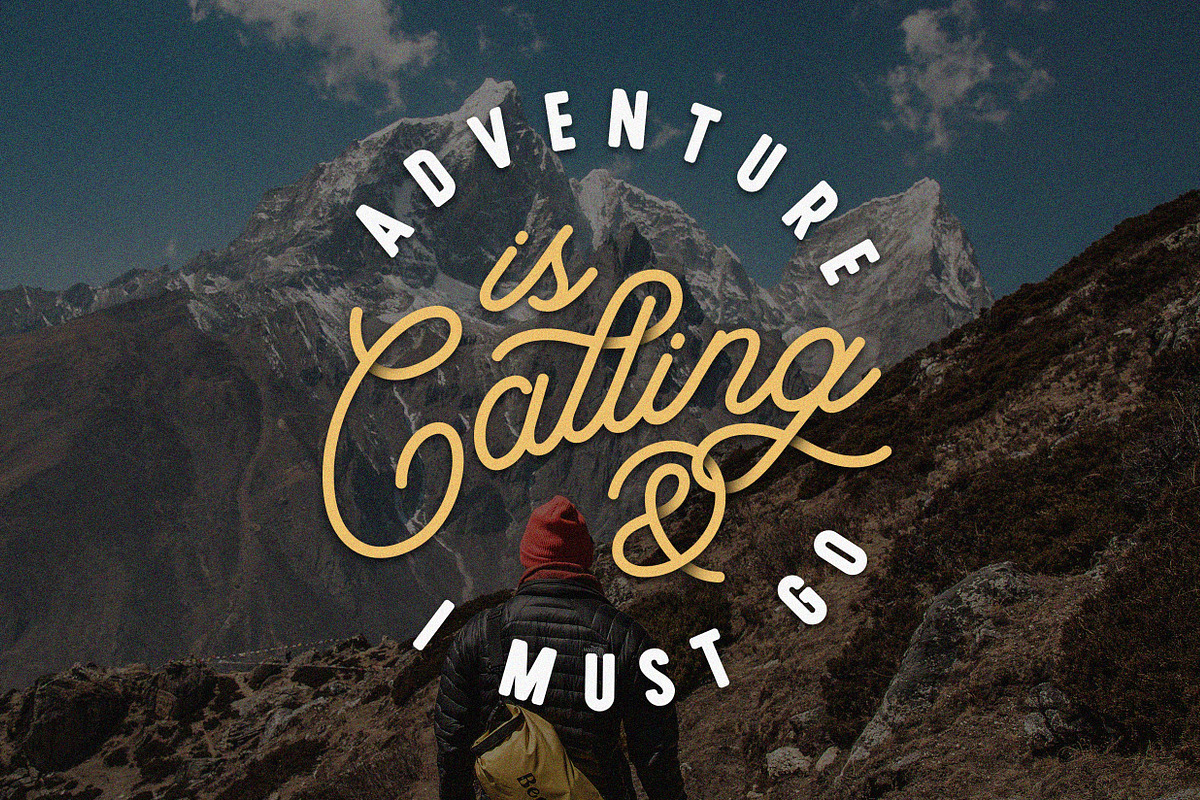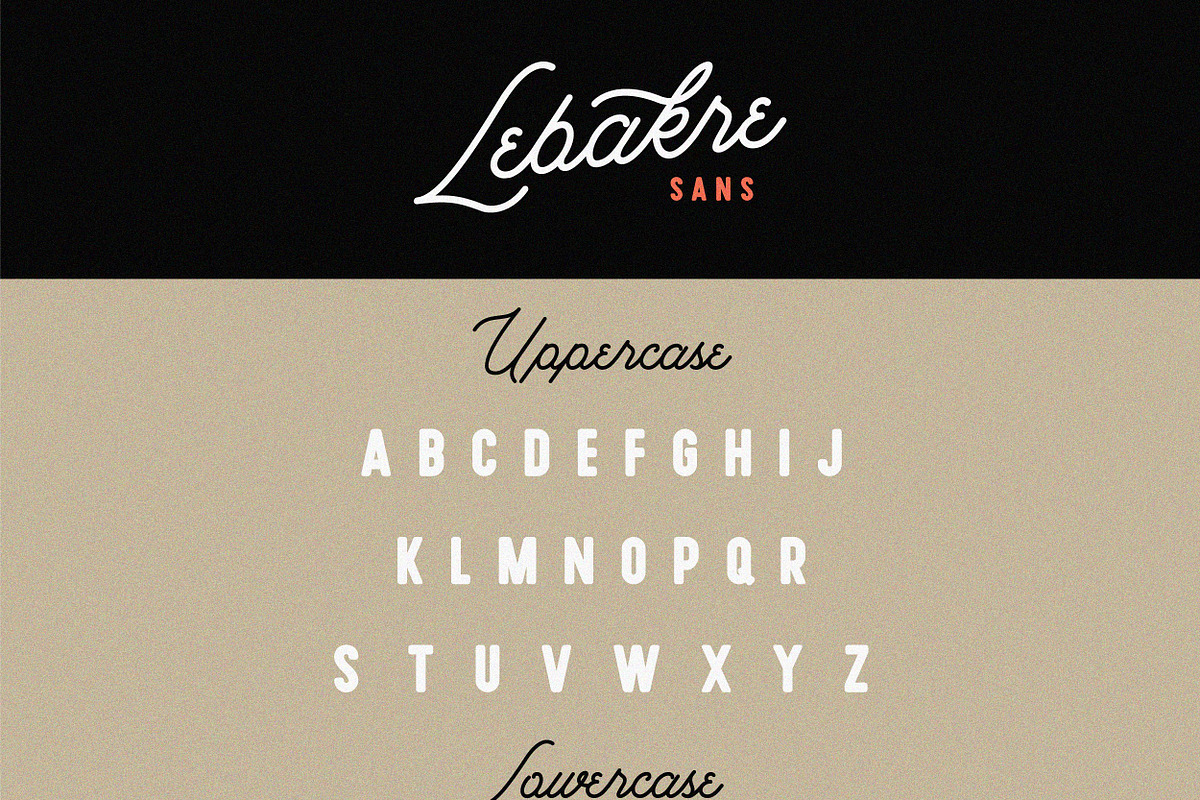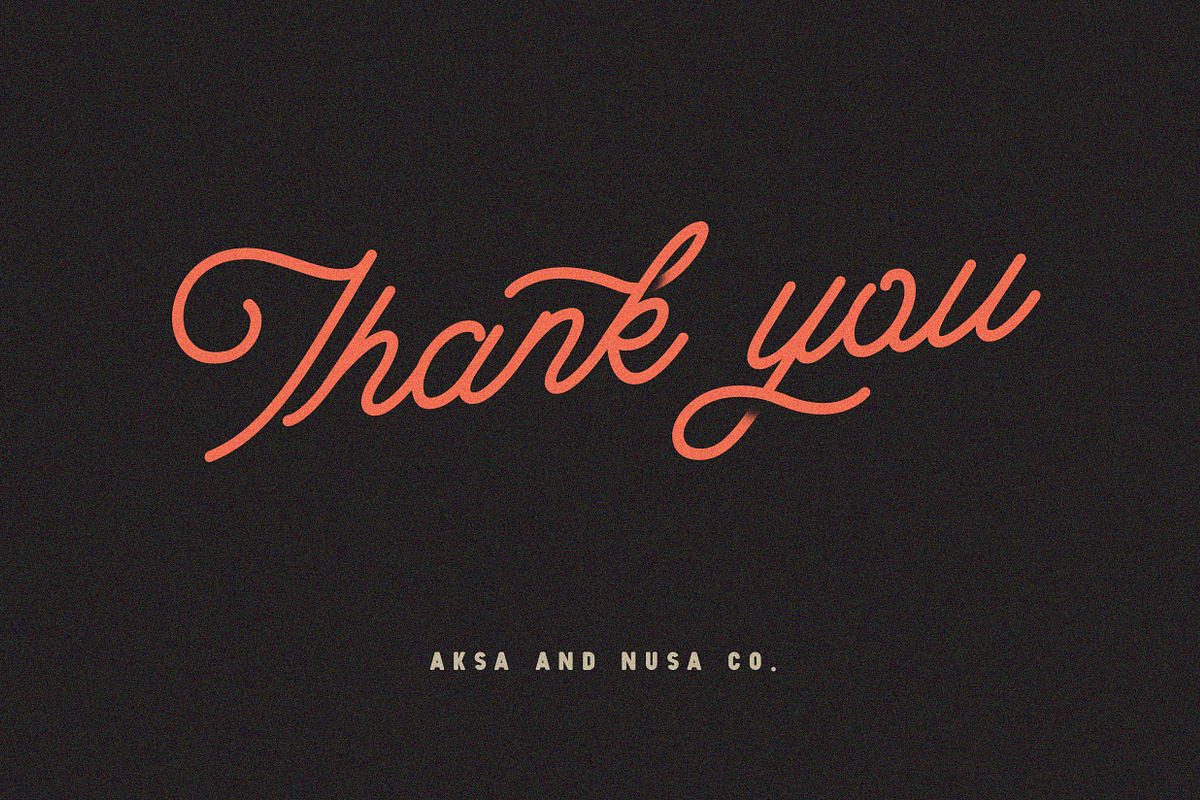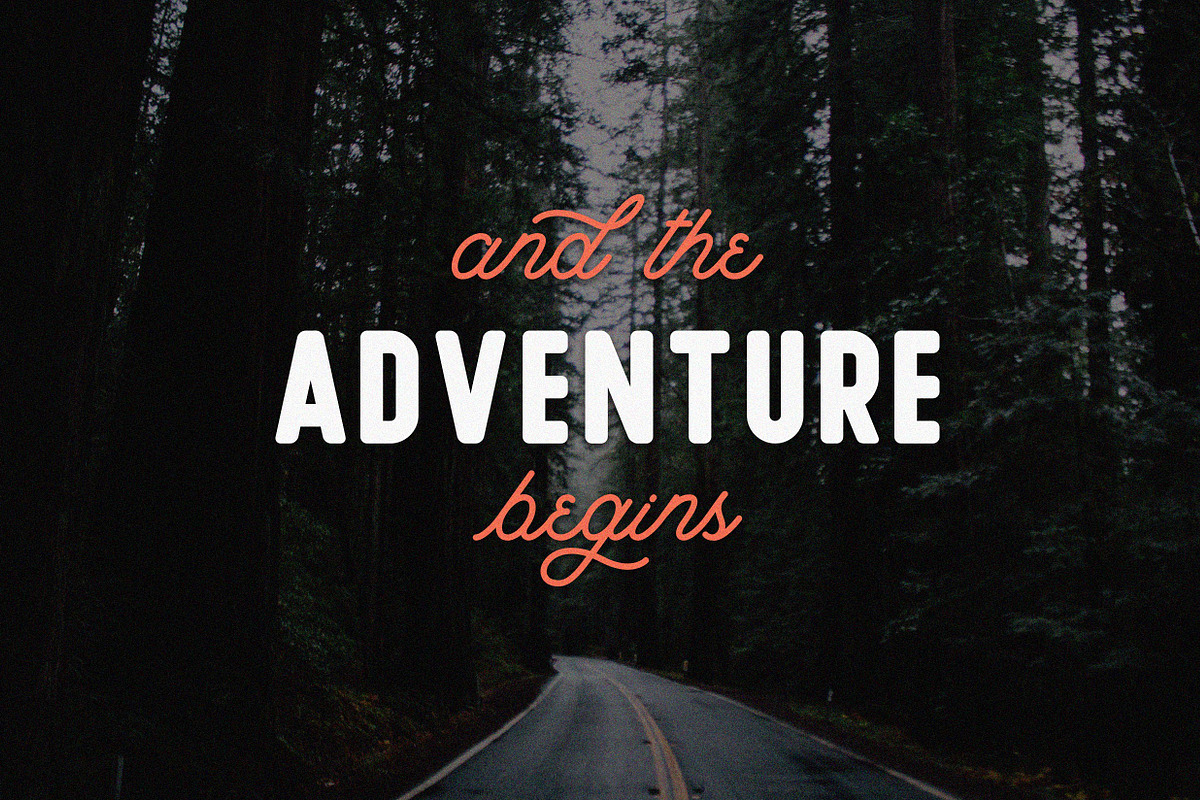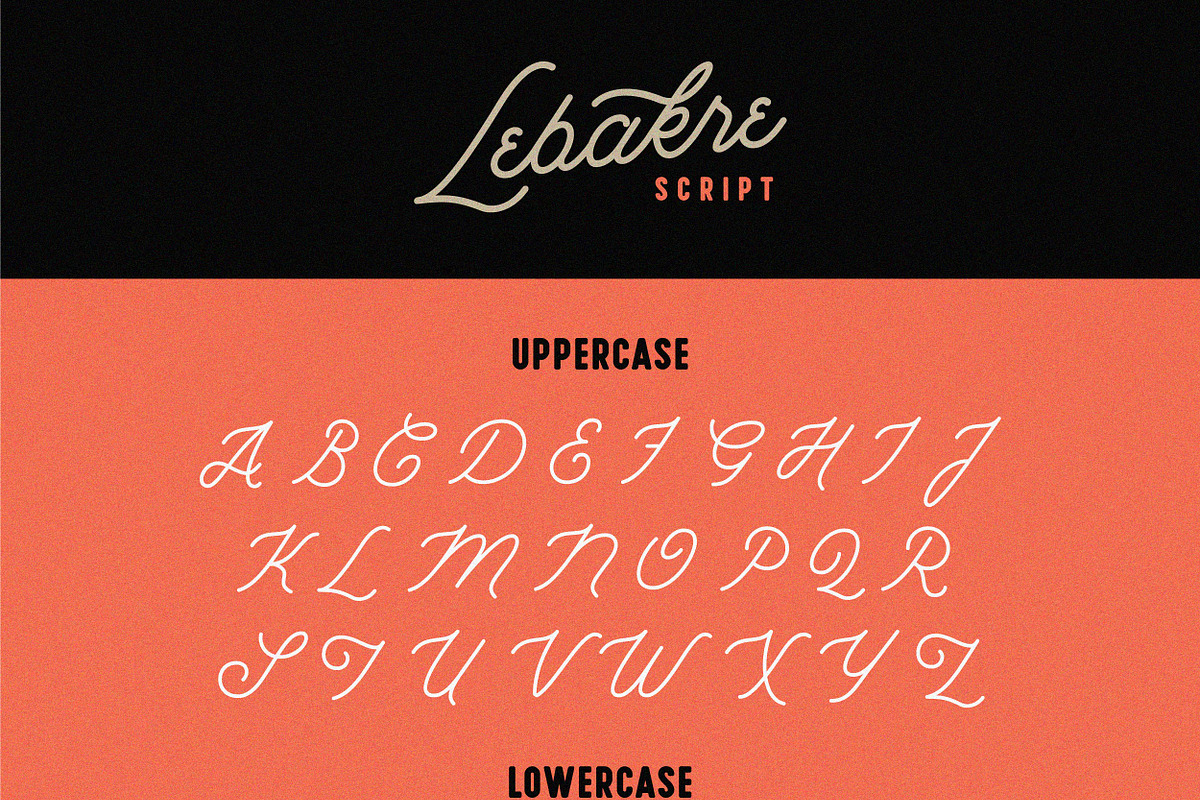
Lebakre Font Duo
Lebakre Font Duo by Aksa & Nusa Co. is a font selected for branding, posters, packaging, typography.
- Uppercase, Lowercase, Numbers and Puncts, Stylistic Alternates, and Ligature are available in this type.
- its an All Caps style, the lowercase are a lil' bit smaller than the uppercase, bring another vibe to your design by combining them for the
- Lebakre Sans Regular
- Lebakre Script Regular
Lebakre Font Duo by Aksa & Nusa Co. fits naturally into Branding, posters, packaging, typography.